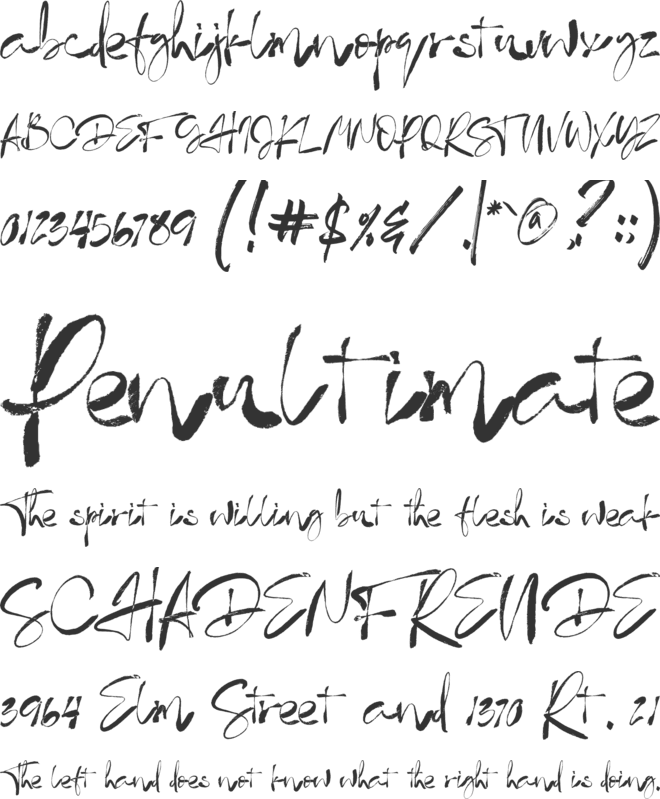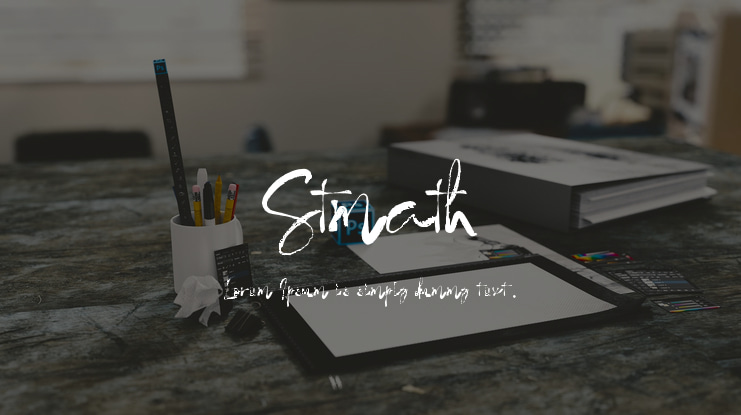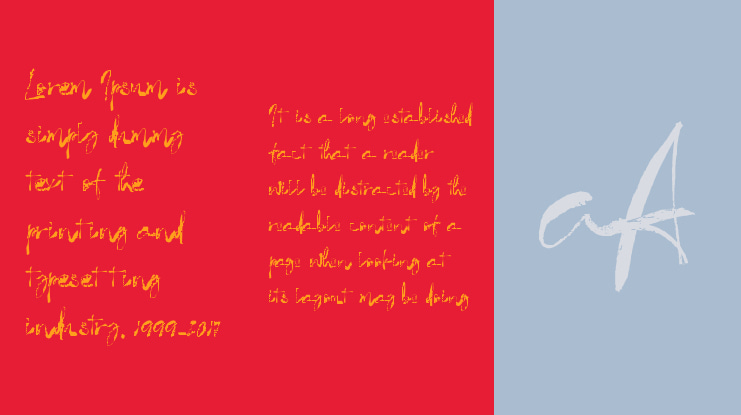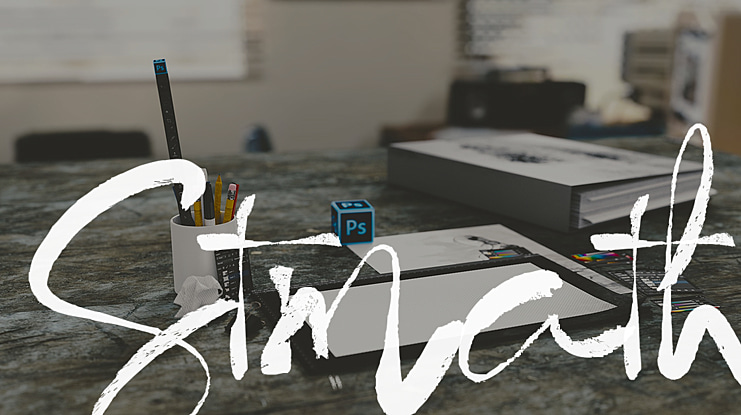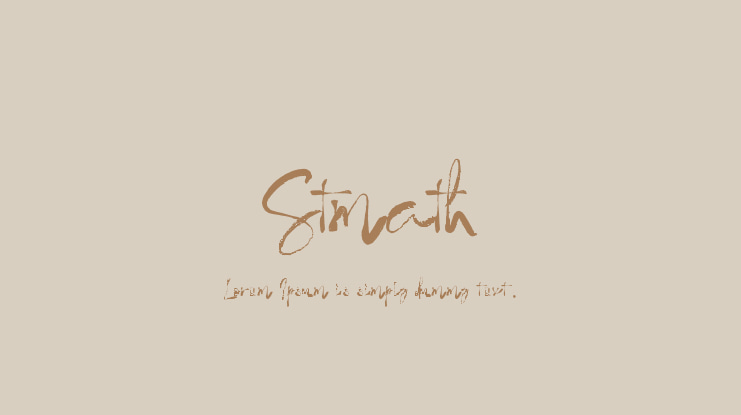
Stmath Font
Stmath Font is a modern calligraphy script font with thin upstrokes and super heavy downstrokes. Inspired by the modern calligraphy lettering and try to create them with brush & ink.